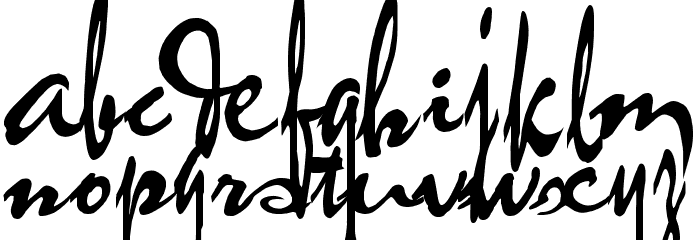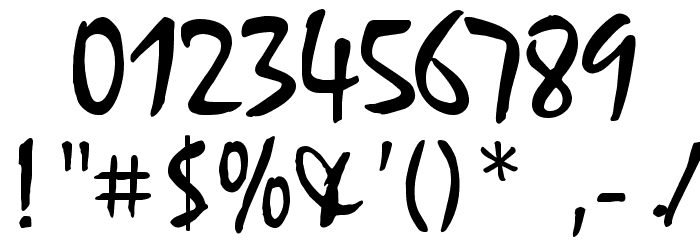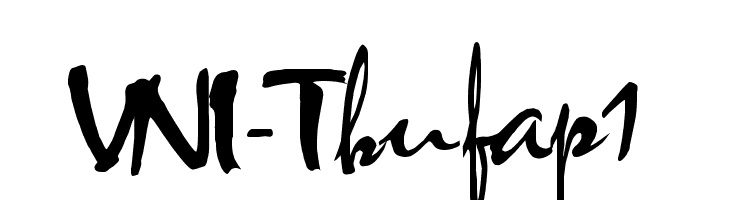
VNI-Thufap1 Font
This font exhibits a dynamic and expressive style, characterized by its bold, sweeping strokes and a handwritten appearance. The uppercase letters are particularly striking, with a sense of movement and fluidity that suggests a brush or pen in motion. The lowercase letters maintain this energetic style, with some characters featuring elongated descenders and ascenders that add to the overall flair. The numerals are consistent with the alphabet, offering a cohesive look across all characters. Special characters are included, maintaining the same bold and artistic style. This font is ideal for projects that require a personal touch or an artistic flair, such as invitations, posters, or branding materials.
A bold, expressive handwritten font with dynamic strokes and artistic flair.